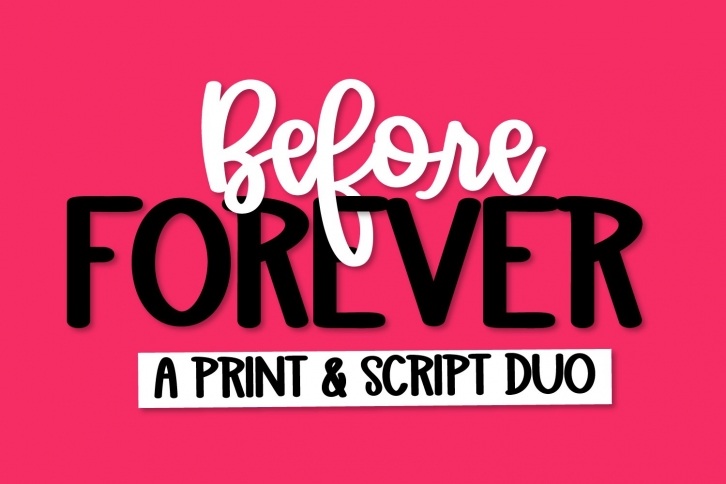
Before Forever is a trendy and unique font with an authentic style. It was designed by Justina Tracy and it's a great choice for creative people who need such a font. It was released on August 12, 2020 and the file size is 9.19 MB. Before Forever will add an organic vibe to any design idea!